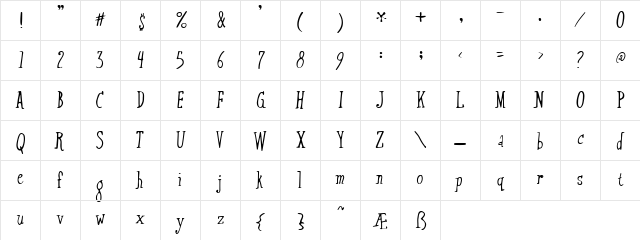
Xtraflexidisc Regular Free Font
Xtraflexidisc Regular
Design Context for Xtraflexidisc
Xtraflexidisc is a composed and adaptable typeface that performs quietly and consistently across a wide range of design contexts.